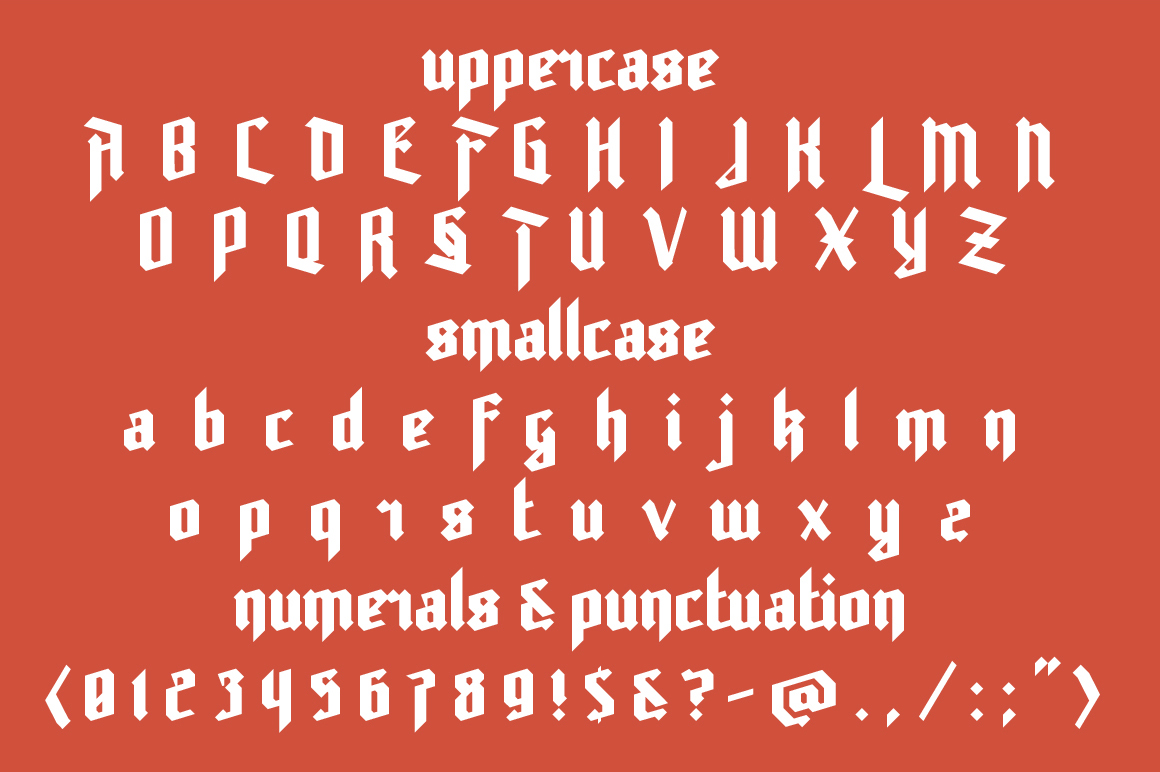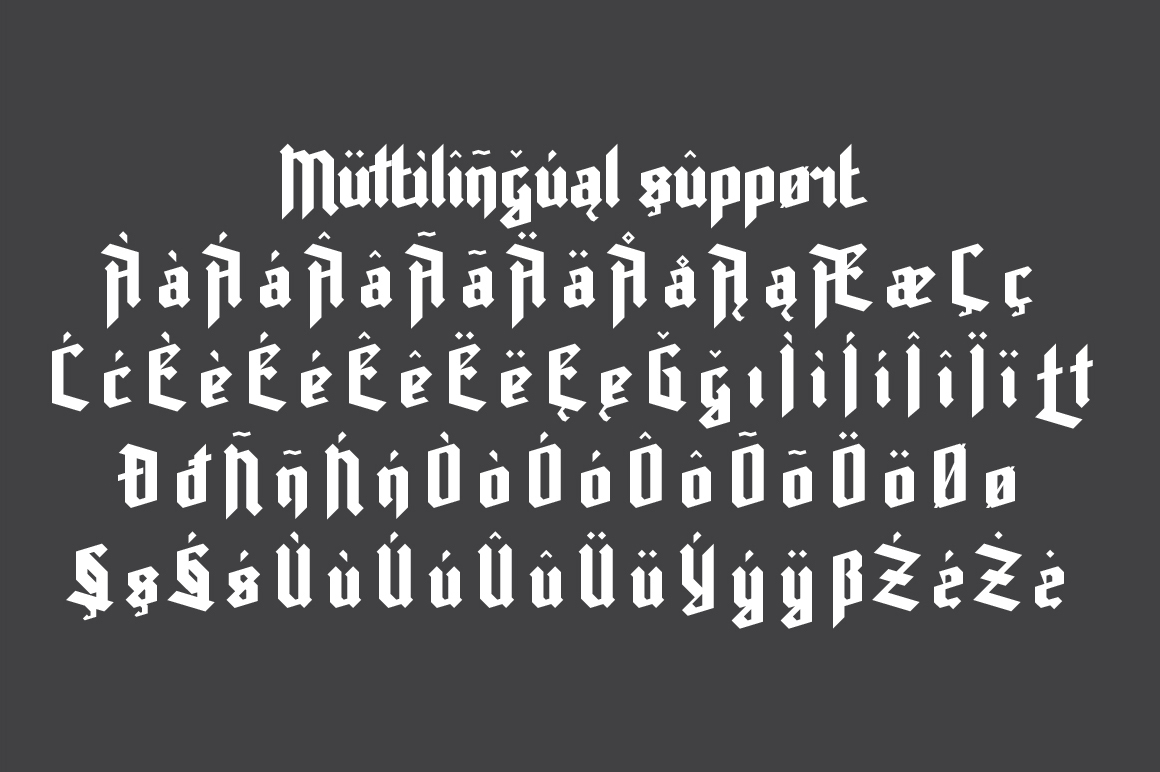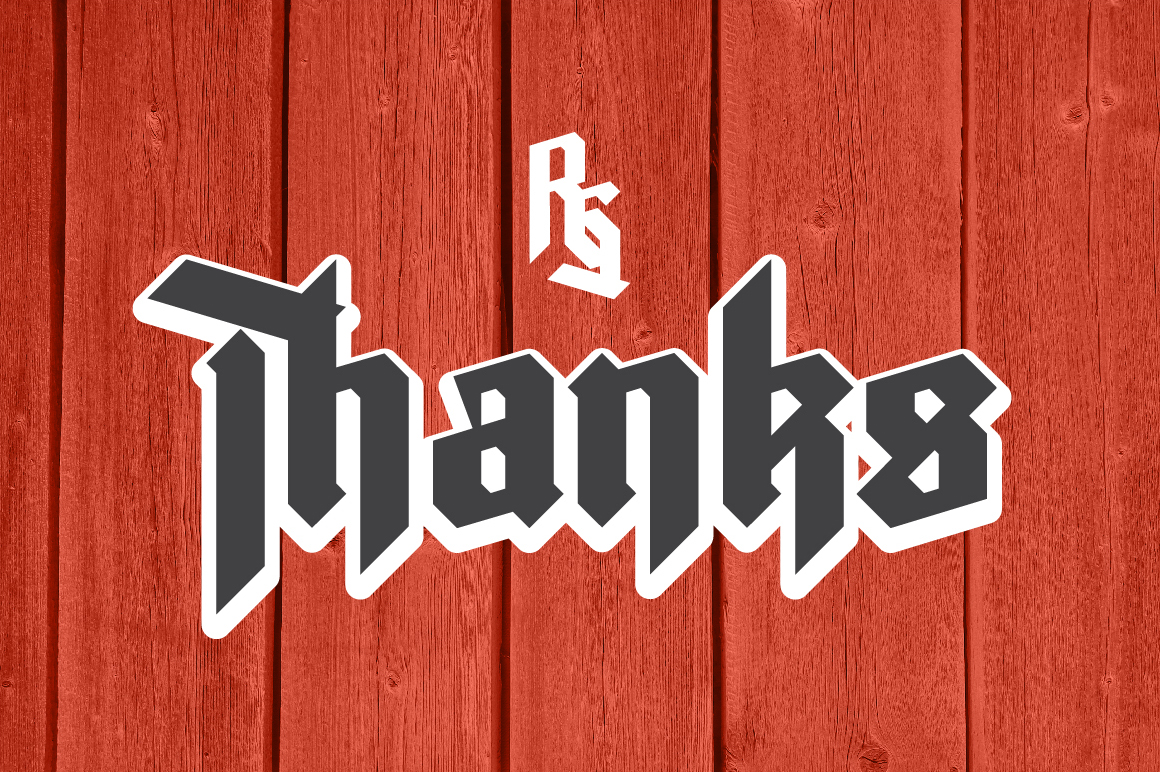
Unlocking the Power of Rot Shield Font
Have you ever been working on a creative project, pouring your heart and soul into a design, only to find that the right font is missing? That’s where the magic of the Rot Shield Font comes in – a classic Gothic typeface that adds a touch of power and expressiveness to your work. With its bold lines and intricate details, this font is the perfect addition to any design, whether you’re working on a poster, a logo, or a website.
One of the best things about the Rot Shield Font is its versatility – it’s perfect for designers who want to add a touch of elegance and sophistication to their work. Plus, it’s available for free download, making it a valuable resource for designers on a budget. And with its high-quality design, you can be sure that your work will stand out from the crowd, even with a transparent background.
Key Features of Rot Shield Font
- Unique, bold, and modern font style with a transparent background
- Perfect for use in graphic design, digital art, and print media projects
- High-resolution font, suitable for use at large sizes (up to 72pt)
- Compatible with most operating systems and design software
Honest Review: Rot Shield Font
I recently came across the Rot Shield Font, and I have to say it’s a great addition to my design resources. As a designer, I’m always on the lookout for unique and high-quality fonts that can elevate my creative projects. The Rot Shield Font does just that.
- Unique design: The Rot Shield Font has a distinctive look that sets it apart from more traditional fonts. Its bold, shield-like design makes it perfect for titles and headings.
- High quality: The font is well-crafted and looks great on a variety of backgrounds, including transparent backgrounds.
- Limited character set: The font doesn’t include a wide range of characters, which may be a problem for designers who need to use it for extended periods.
- No bold or italic versions: While the font is bold in its design, it doesn’t come in bold or italic versions, which can limit its versatility.
Overall, I’m impressed with the Rot Shield Font and would definitely recommend it for creative projects where a unique, high-quality font is needed. Just be aware of its limitations and use it accordingly.
Rot Shield Font
The Rot Shield Font is a versatile and high-quality design resource that can add a unique touch to your creative project. With a transparent background, this font can be easily integrated into various design applications.
Tips for Getting the Most Out of Rot Shield Font
Experiment with different font sizes, colors, and styles to create a unique look. Use the transparent background to create a seamless design.
The Rot Shield Font is ideal for creative projects, such as logos, posters, and infographics. It can also be used for personal projects, such as invitations and social media graphics.